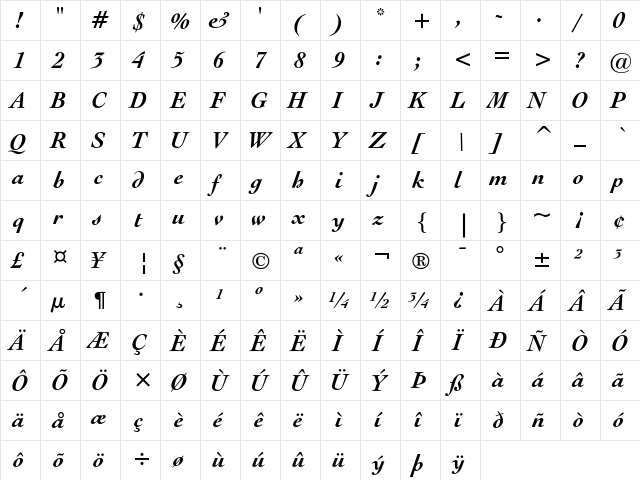
Engravers' Oldstyle 205 Bold Italic Font Preview
Design Context for Engravers' Oldstyle 205 Typeface
Engravers' Oldstyle 205 brings classic typographic sensibility to the table — its serifs and measured letterforms reflect centuries of print heritage. The slanted form adds forward momentum and visual energy. The heavy weight commands attention and anchors typographic hierarchies.